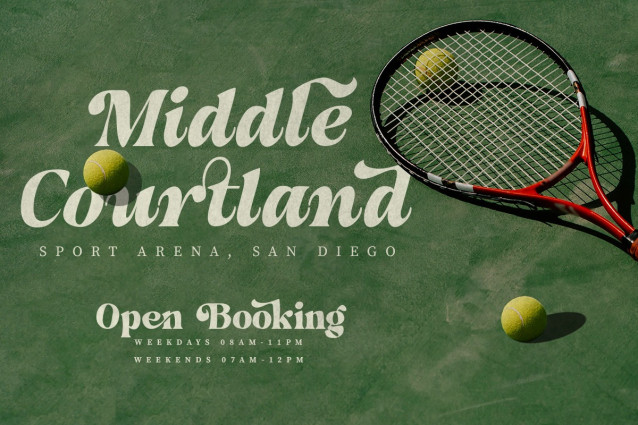
Hukela Display Font Family
Hukela Display Font Family is a bold and expressive serif typeface designed for brands that dare to stand out. With its elegant curves, refined contrast, and striking editorial flair, Hukela brings a sense of sophistication and artistic character to any project. Perfect for magazines, branding, packaging, fashion editorials, and headlines that demand attention.
Each letter of Hukela Display carries a crafted charm — combining classical serif elegance with modern sensibility. Its high contrast strokes and unique terminal shapes give it a distinctive voice that feels both timeless and contemporary.